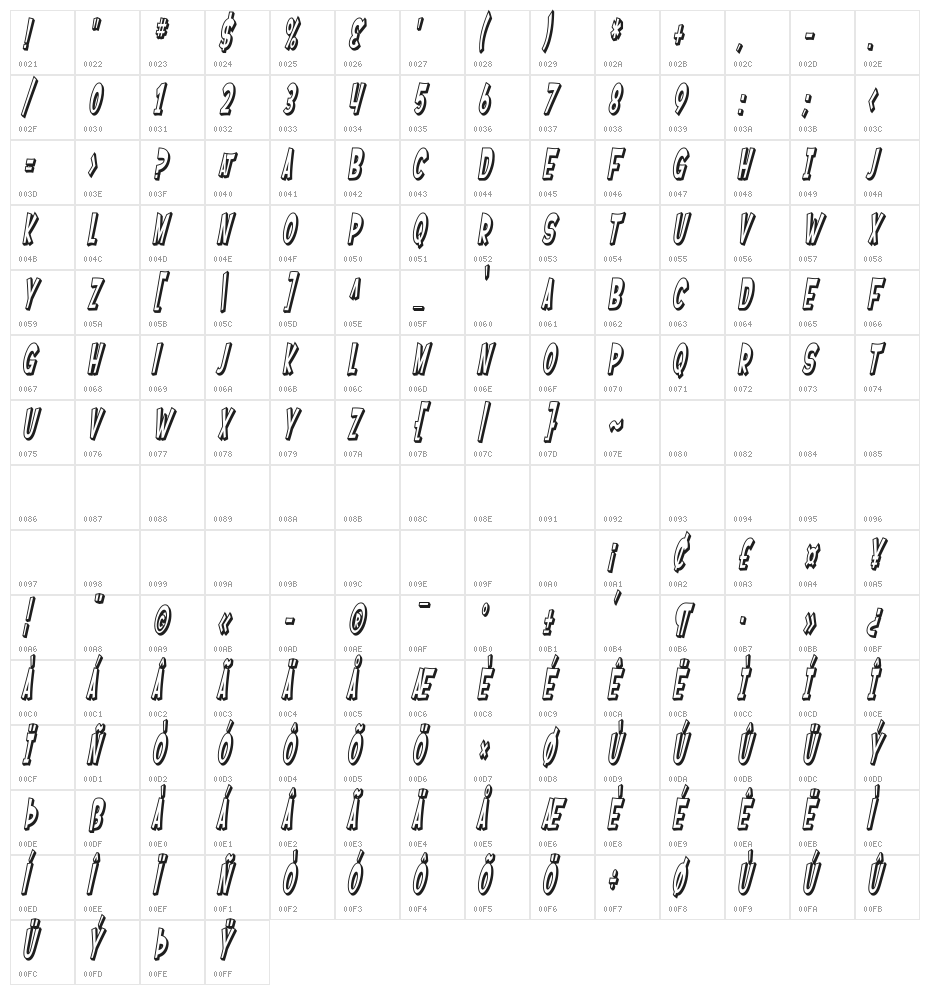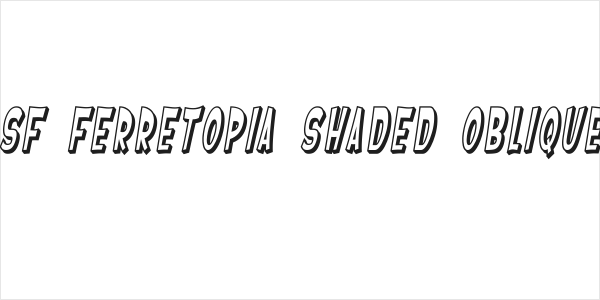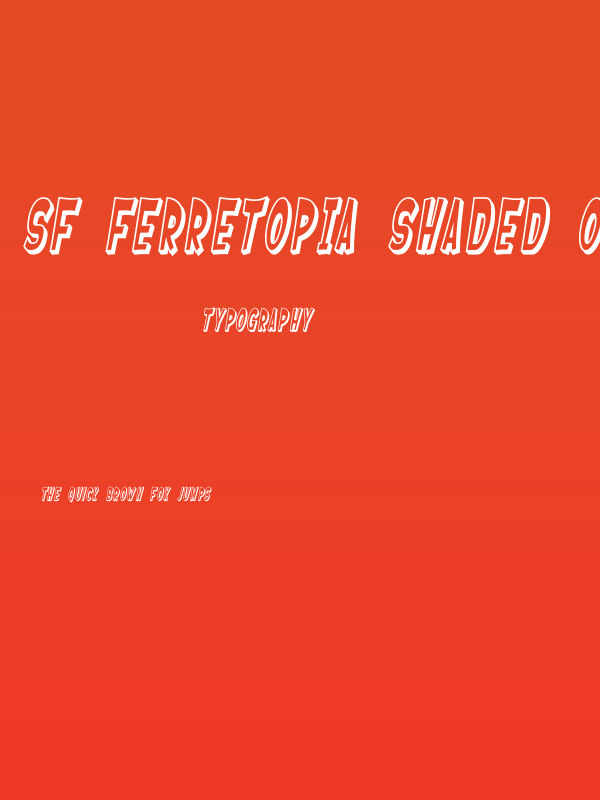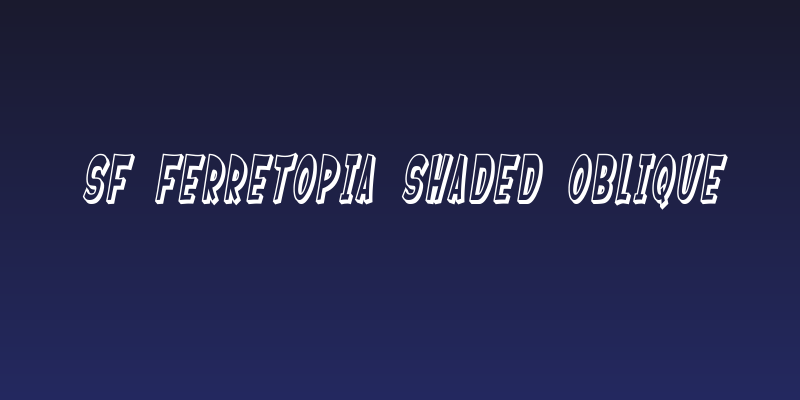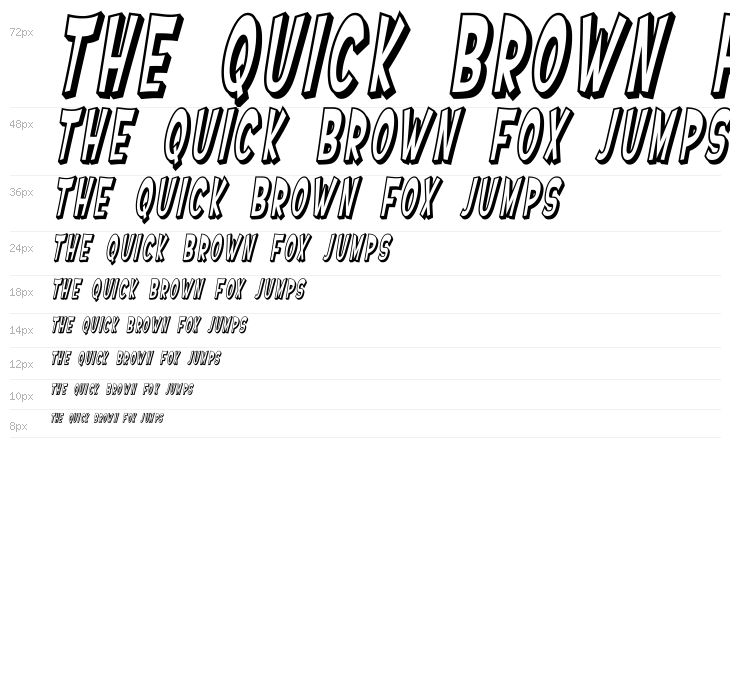
SF Ferretopia Shaded Oblique Font
SF Ferretopia Shaded Oblique Description
This font features a bold, dynamic style with a distinct oblique slant, giving it a sense of movement and energy. The characters are outlined with a thick black shadow, creating a three-dimensional effect that makes them stand out prominently. The uppercase and lowercase letters maintain a consistent style, with rounded edges and a playful, cartoonish appearance. The numbers and special characters are designed to match the overall aesthetic, ensuring a cohesive look across all text elements. This font is ideal for projects that require a fun and engaging visual impact.
Overall StylePlayful, Dynamic
Proposed ProjectsPerfect for comic books, children's book covers, playful branding, and eye-catching posters.